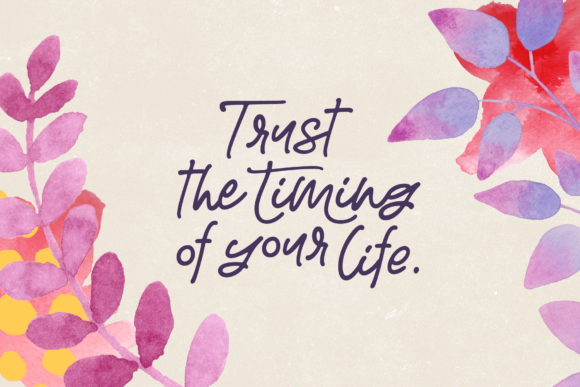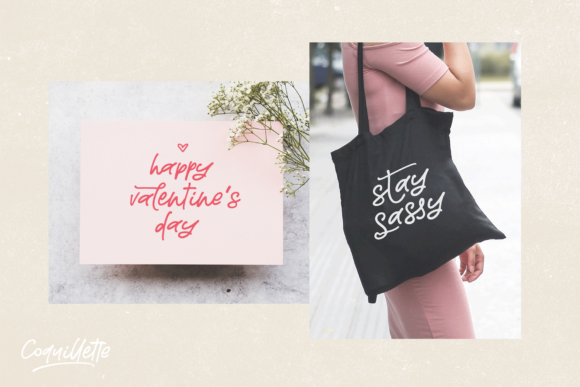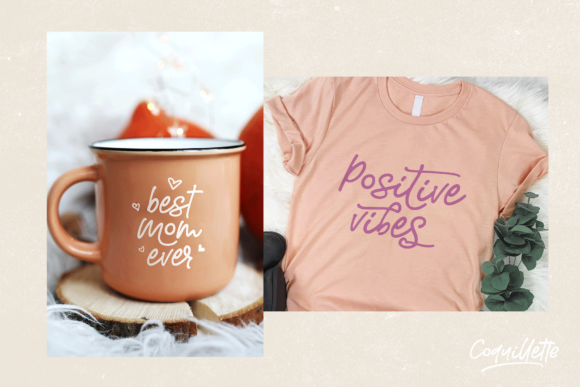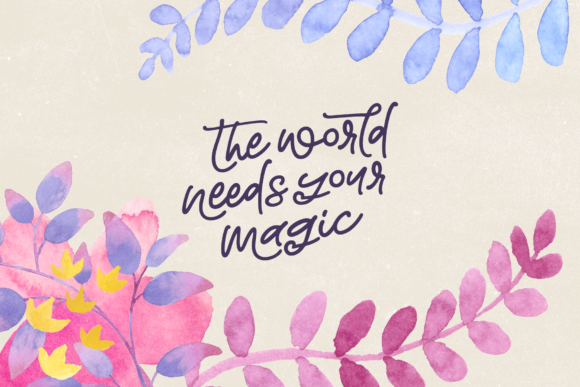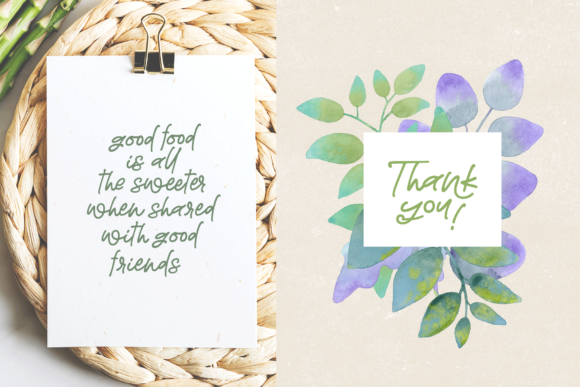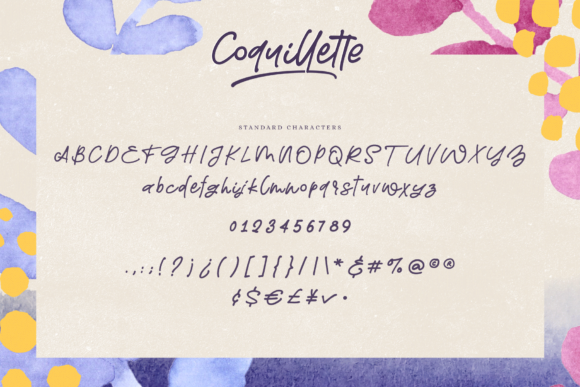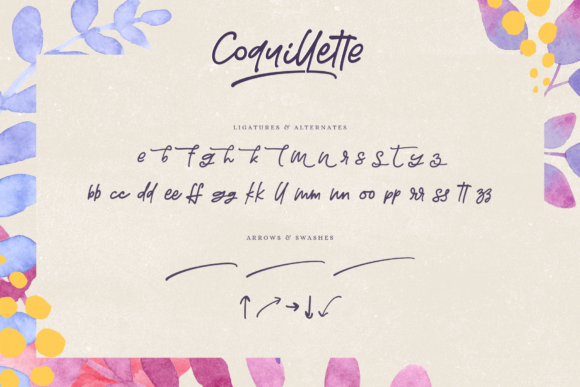
Coquillette Font
About Coquillette Font
Coquillette is a sweet, flowing handwritten font. It looks spectacular on wedding invitations, thank you cards, quotes, greeting cards, logos, business cards and every other design which needs a handwritten touch.